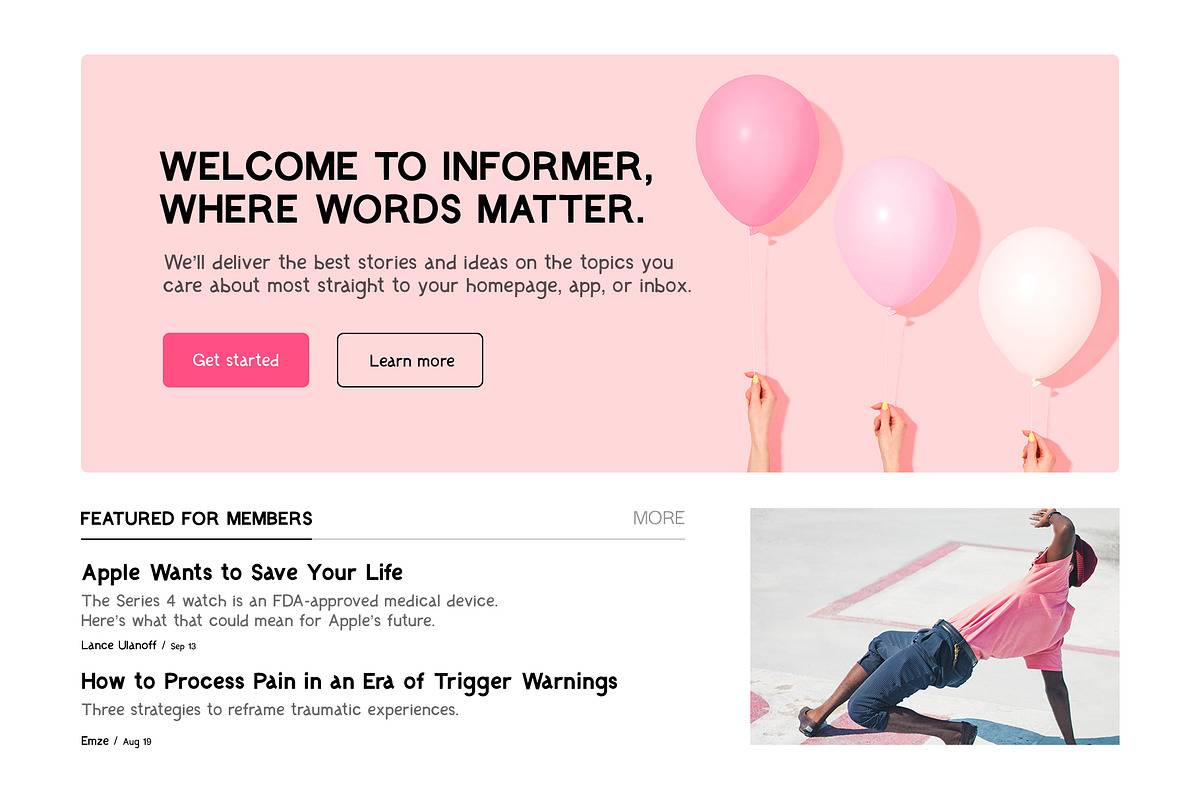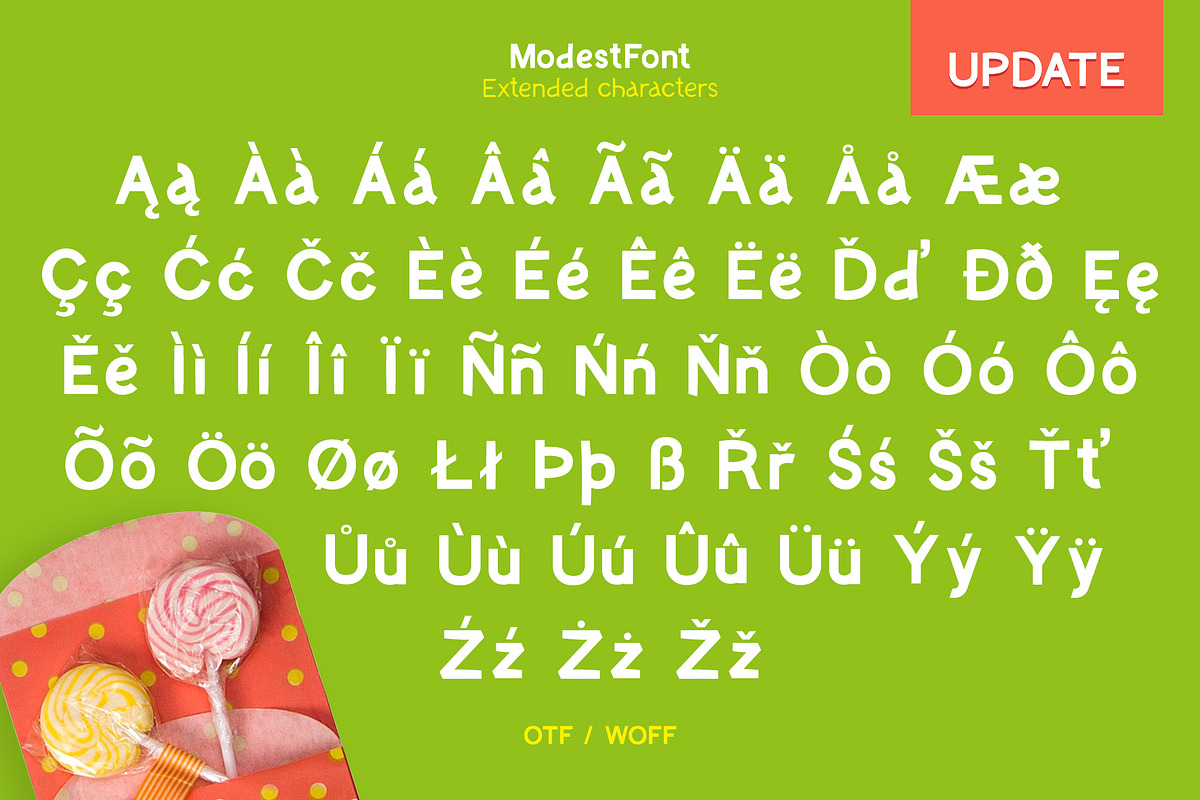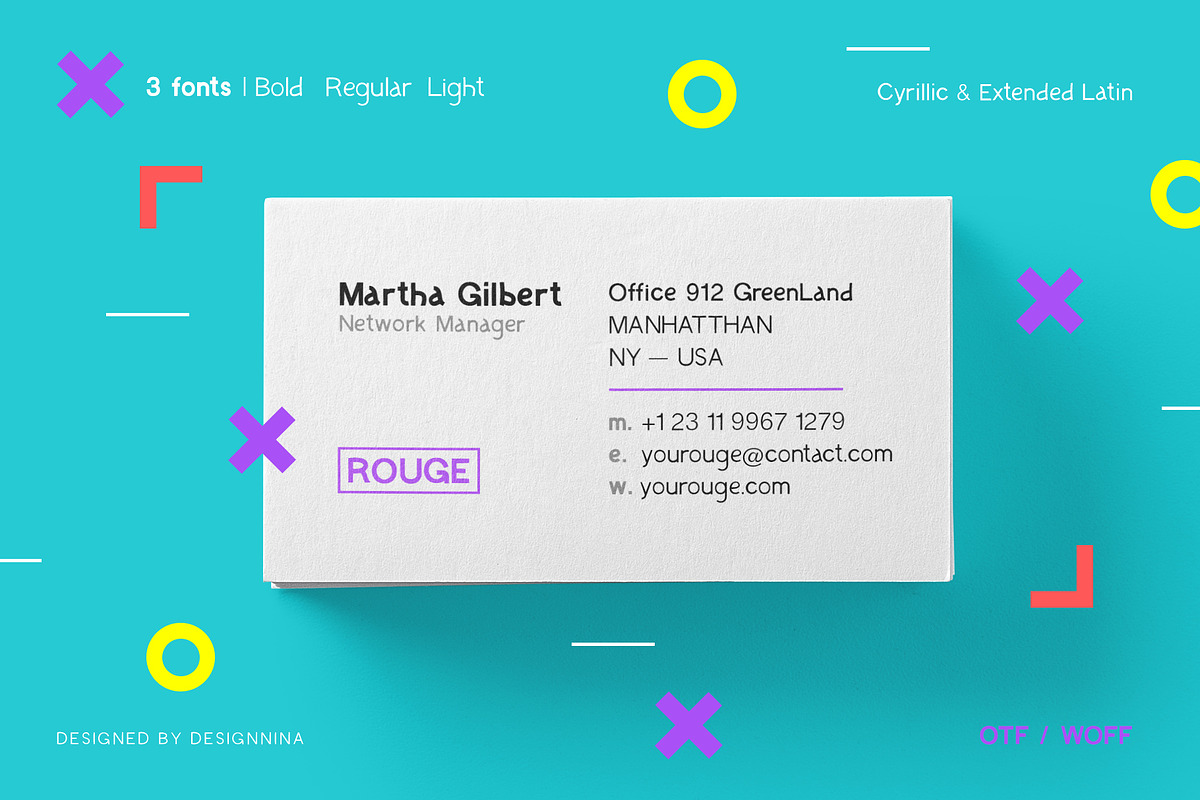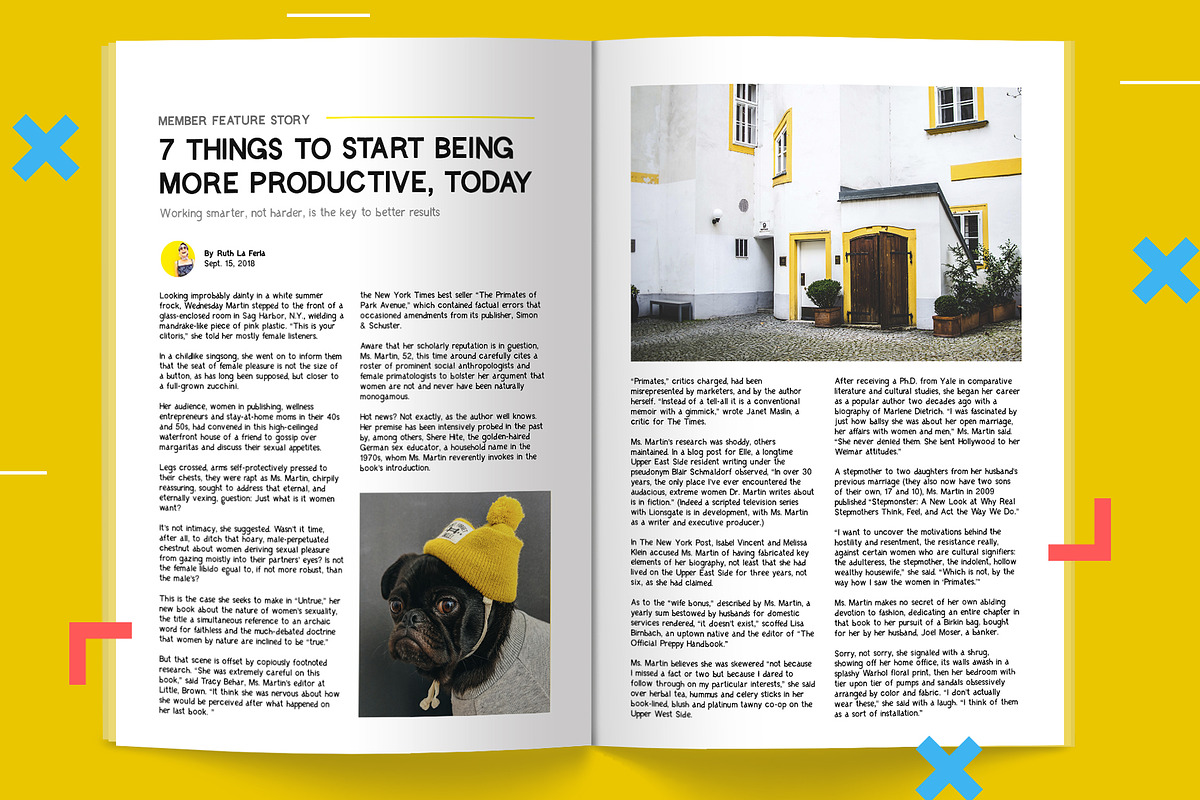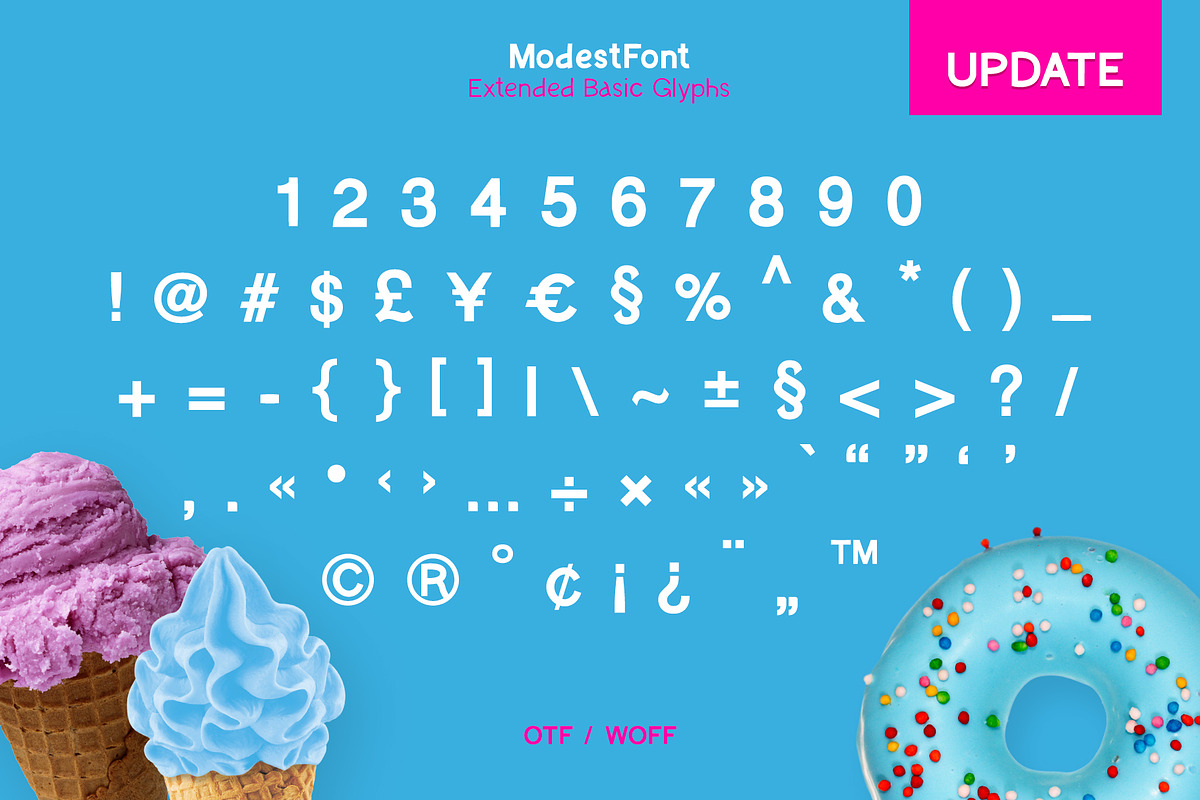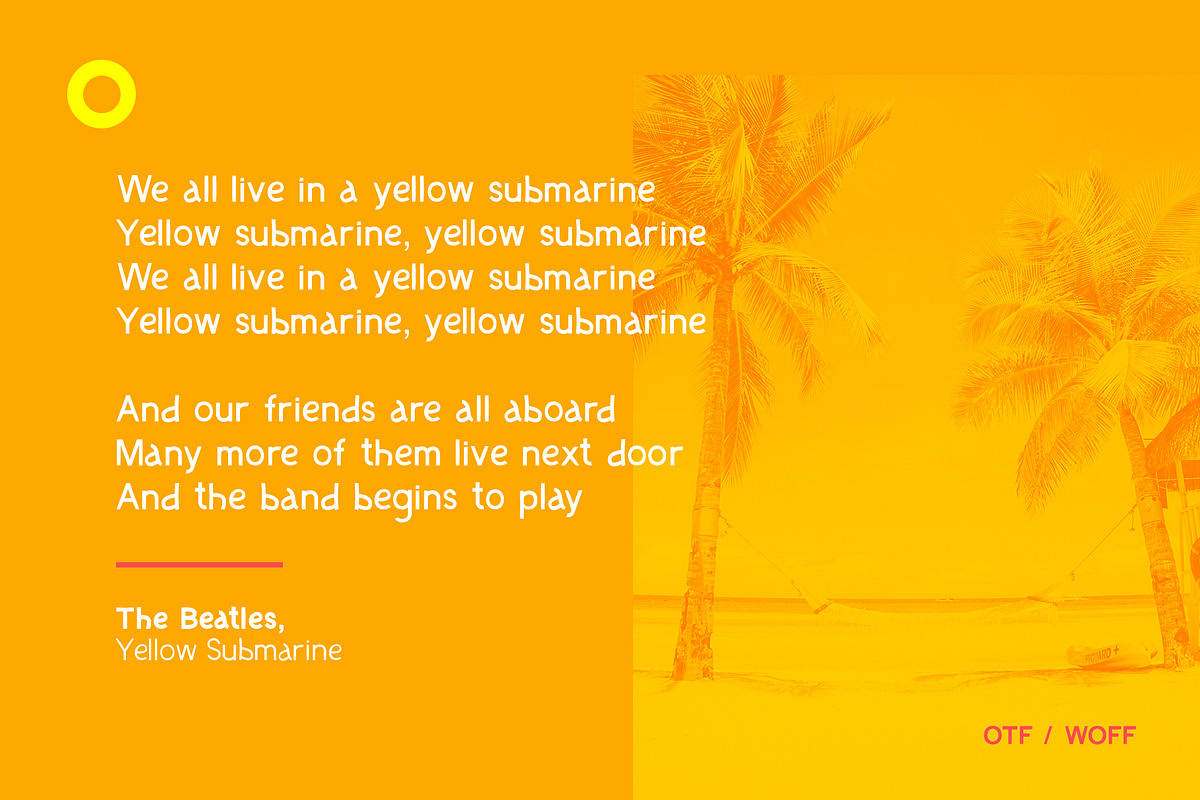
ModestFont
The last update version of ModestFont includes extended Latin characters and more punctuations. It became easier to use!
Be precise and unusual! Be an adult but with childish spontaneity. All this is ModestFont
Our adult everyday life is sometimes so dull and sad. Sometimes, we don’t have enough children's spontaneity and informality. Therefore I offer this wonderful ModestFont for you in three weights and obliques, which is readable at any sizes. This font is ideal for writing massive paragraphs, for printing, for creating advertising, as well as for use in the web industry.
Here are some nuances:
- 3 weights and obliques + basic glyphs & kerning pairs
- OpenType features
- Extended Latin and Cyrillic support